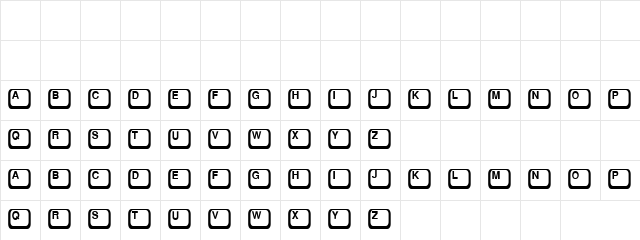
Key Taps Regular
Design Context for Key Taps Typeface
Key Taps takes a measured approach to typography — its balanced proportions and neutral character make it a reliable workhorse for both digital and print work.